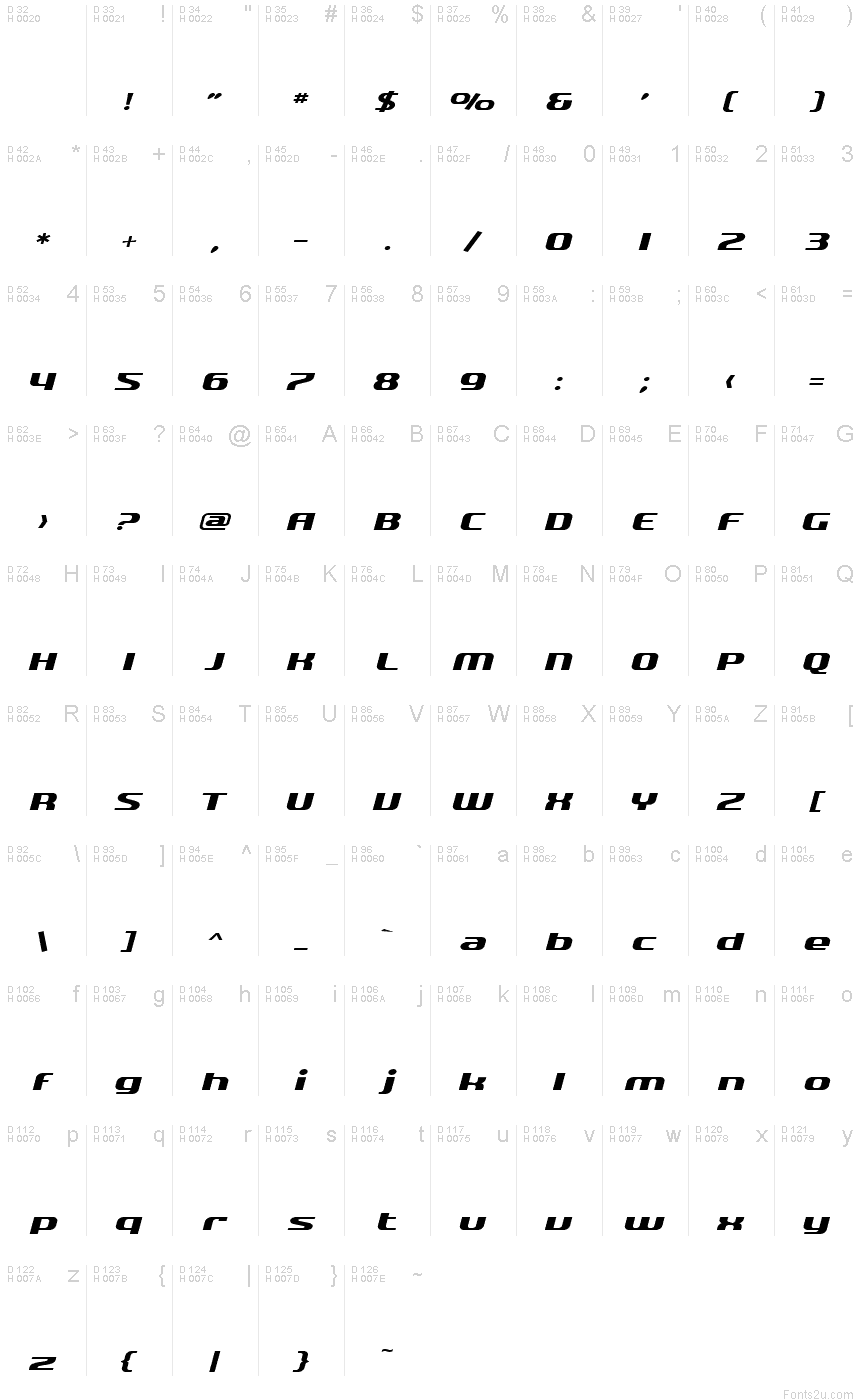
SF Quartzite Extended Oblique
SF Quartzite Extended Oblique by ShyFoundry is a free futuristic display font with a fast, road-tested slant. The letters are wide and low, with thick rounded corners and deep cut-in joins that give the whole design a molded, automotive feel rather than a neutral modern one.
It works well for gaming logos, motorsport posters, tech packaging, album titles, and title cards where a few words need that sleek machine-age push. As a free font, it also makes sense for short headlines, branded merch, and interface-style graphics, since the heavy sideways motion and compact silhouette keep the look tight and directional.